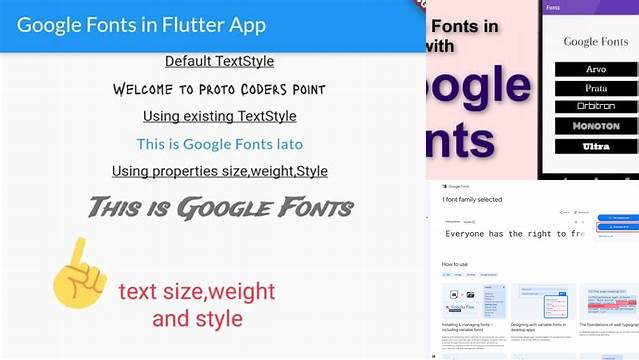
Flutter Google Fonts: The Complete List & Guide
Hey guys! Ever wanted to spice up your Flutter app with some awesome fonts? Well, you're in the right place! This guide dives deep into using Google Fonts in your Flutter projects. We'll cover everything from installation to advanced customization, ensuring your app looks stunning. Let's get started!
What are Google Fonts and Why Use Them in Flutter?
Google Fonts is a fantastic library of free, open-source fonts that you can use in your projects. Why should you bother? Well, typography plays a crucial role in user experience. The right font can make your app more readable, engaging, and professional. Using Google Fonts in Flutter is super easy, thanks to the google_fonts
package. It provides a vast selection of fonts directly within your app, without the need for manual downloading or importing. Plus, it helps keep your app's size down by efficiently managing font files.
Imagine you're building a sleek, modern e-commerce app. Using a generic, system-default font might make it look⦠well, generic. But with a carefully chosen Google Font, you can instantly elevate the app's aesthetics and create a memorable brand identity. The possibilities are endless, from elegant serif fonts for a sophisticated look to playful sans-serif fonts for a more casual feel.
The benefits are truly undeniable, the Google Fonts library offers unparalleled variety, meaning youāre sure to find something that fits your brand and design aesthetic perfectly. Secondly, it's completely free to use, saving you potentially hundreds of dollars in licensing fees, which are especially beneficial for startups or individual developers working on a budget. Lastly, the google_fonts
package simplifies integration; no more manually downloading fonts and including them in your project. This package handles all the heavy lifting, allowing you to focus on the fun stuff: designing a great user interface.
Basic Usage: Applying a Google Font to Your Text
Okay, now for the fun part! Let's apply a Google Font to some text in your Flutter app. Import the google_fonts
package in your Dart file:
Then, use the GoogleFonts
class to specify the font you want to use in your TextStyle
:
In this example, we're using the Roboto font with a font size of 24 and bold font weight. You can replace roboto
with any other font name from Google Fonts. Just remember to use the correct font name (case-sensitive!).
Applying a Google Font to your text is straightforward, but there are a few things to keep in mind. The GoogleFonts
class provides a static method for each font available in the Google Fonts library. This makes it incredibly easy to specify the font you want to use. You simply call GoogleFonts.fontName()
and pass in any additional styling parameters you need, such as fontSize
, fontWeight
, color
, and more. This approach not only simplifies the process but also makes your code more readable and maintainable.
Exploring the google_fonts
Package: More Than Just Fonts
The google_fonts
package offers more than just font names. It provides a range of customization options to fine-tune your typography. You can specify font weights, styles (italic, normal), letter spacing, and more. For example:
Text(
'This is italic text!',
style: GoogleFonts.lato(
fontStyle: FontStyle.italic,
),
)
Text(
'Custom letter spacing!',
style: GoogleFonts.montserrat(
letterSpacing: 2.0,
),
)
The google_fonts
package provides a plethora of options to tailor the appearance of your text. Let's delve into some of the most useful customization features. First off, you can adjust the fontWeight
to control the thickness of the text. Options range from FontWeight.w100
(thin) to FontWeight.w900
(black), allowing you to create subtle or dramatic variations. Secondly, you can use the fontStyle
property to switch between FontStyle.normal
(the default) and FontStyle.italic
, adding a touch of elegance or emphasis to your text.
Furthermore, the letterSpacing
property lets you control the amount of space between letters, which can improve readability or create a unique visual effect. Similarly, the wordSpacing
property allows you to adjust the space between words. Finally, you can use the height
property to control the line height, which is especially useful for longer blocks of text. Experimenting with these options can significantly enhance the visual appeal and readability of your app.
Advanced Techniques: Font Weight and Style Combinations
Combining different font weights and styles can create visually appealing and engaging text. For example, you can use a bold font weight for headings and a normal font weight for body text. Here's how:
Column(
children: [
Text(
'This is a Heading',
style: GoogleFonts.oswald(
fontWeight: FontWeight.bold,
fontSize: 30,
),
Text(
'This is the body text. It uses a normal font weight.',
style: GoogleFonts.lato(
fontWeight: FontWeight.normal,
fontSize: 16,
),
],
)
Mastering font weight and style combinations is a key skill for any Flutter developer aiming to create polished and professional-looking apps. These techniques allow you to establish a clear visual hierarchy, guide the user's eye, and convey information effectively. For example, using a bold font weight for headings immediately draws attention and signals the start of a new section. In contrast, using a normal font weight for body text ensures readability and prevents the text from appearing too overwhelming.
Experiment with different combinations to find what works best for your app's design. Consider using different font weights and styles to differentiate between various types of content, such as headings, subheadings, captions, and body text. Also, pay attention to the overall balance and harmony of your typography. Avoid using too many different font weights and styles, as this can create a cluttered and confusing look. Instead, aim for a cohesive and consistent design that enhances the user experience.
Ensuring Font Consistency Across Your App
To maintain a consistent look and feel throughout your app, define your text styles in a central location and reuse them across your widgets. You can create a custom class or use Flutter's ThemeData
to define your text styles.
Here's an example using ThemeData
:
ThemeData(
textTheme: TextTheme(
headline1: GoogleFonts.montserrat(
fontSize: 32,
fontWeight: FontWeight.bold,
color: Colors.black,
),
bodyText1: GoogleFonts.lato(
fontSize: 16,
color: Colors.grey[800],
),
)
Then, you can access these styles in your widgets:
Text(
'My Headline',
style: Theme.of(context).textTheme.headline1,
)
Consistency is key when it comes to typography in your Flutter app. Using a consistent set of fonts, sizes, weights, and styles throughout your app creates a professional and polished look, enhancing the user experience. This not only makes your app visually appealing but also improves readability and comprehension.
To achieve font consistency, you need to establish a clear typography system. This involves defining a set of text styles for different elements of your app, such as headings, subheadings, body text, captions, and buttons. Each text style should specify the font family, size, weight, style, color, and other relevant properties. Once you've defined your text styles, you can reuse them across your app, ensuring that all text elements of the same type have the same appearance.
Optimizing Font Loading for Performance
Loading fonts can impact your app's performance, especially on slower devices. To optimize font loading, use the precacheFont
method to load fonts in the background.
Future<void> main() async {
WidgetsFlutterBinding.ensureInitialized();
await GoogleFonts.lato.load(); // Precache the Lato font
runApp(MyApp());
}
Optimizing font loading is crucial for ensuring a smooth and responsive user experience in your Flutter app. Fonts, especially custom fonts from Google Fonts, can sometimes take a while to load, which can cause a noticeable delay when your app starts up or when a new screen is displayed. This delay can be frustrating for users and can negatively impact their perception of your app's performance.
One of the most effective ways to optimize font loading is to pre-cache the fonts that your app uses. Pre-caching involves loading the fonts in the background, before they are actually needed. This way, when the time comes to display the text, the font is already loaded and ready to go, eliminating any delay. The google_fonts
package provides a convenient method for pre-caching fonts called precacheFont
. You can use this method to load fonts in the background, typically during the app's initialization phase.
Handling Font Errors and Fallbacks
Sometimes, font loading can fail due to network issues or other reasons. To handle font errors gracefully, provide a fallback font in your TextStyle
.
Text(
'This is some text',
style: GoogleFonts.openSans(
fontSize: 16,
fontFamilyFallback: ['Arial'], // Fallback to Arial if Open Sans fails to load
),
)
Dealing with potential font loading errors is a critical aspect of developing robust and user-friendly Flutter apps. Network issues, font file corruption, or even unexpected server outages can sometimes prevent fonts from loading correctly. When this happens, your app can display unsightly placeholder text or even crash, leading to a poor user experience.
To handle font errors gracefully, you should always provide a fallback font in your TextStyle
. A fallback font is a default font that the system will use if the primary font fails to load. This ensures that your text remains readable and your app continues to function even in the event of a font loading error. The google_fonts
package allows you to specify a list of fallback fonts using the fontFamilyFallback
property. This property accepts a list of font family names, which will be tried in order until a valid font is found.
Dynamic Font Sizing Based on Screen Size
To make your app responsive, adjust font sizes based on the screen size. Use MediaQuery
to get the screen dimensions and calculate font sizes accordingly.
double screenWidth = MediaQuery.of(context).size.width;
double fontSize = screenWidth * 0.05; // Adjust font size based on screen width
Text(
'Responsive Text',
style: GoogleFonts.roboto(
fontSize: fontSize,
),
)
In the ever-evolving world of mobile devices, creating responsive apps that adapt seamlessly to different screen sizes is crucial for providing a consistent and enjoyable user experience. One key aspect of responsive design is dynamic font sizing, which involves adjusting the size of your text based on the screen size of the device.
Dynamic font sizing ensures that your text remains readable and visually appealing on devices with varying screen dimensions. On smaller screens, you might want to reduce the font size to prevent text from overflowing or appearing too cramped. Conversely, on larger screens, you might want to increase the font size to take advantage of the extra space and improve readability.
Using Custom Themes with Google Fonts
Integrate Google Fonts into your app's custom themes for a consistent and branded look. Define your font styles in your theme and apply them across your app.
ThemeData myTheme = ThemeData(
primaryColor: Colors.blue,
textTheme: TextTheme(
headline1: GoogleFonts.raleway(
fontSize: 36,
fontWeight: FontWeight.bold,
color: Colors.white,
),
);
MaterialApp(
theme: myTheme,
home: Scaffold(
appBar: AppBar(
title: Text('My App', style: Theme.of(context).textTheme.headline1),
),
)
Custom themes are a powerful way to define the overall look and feel of your Flutter app. By encapsulating all your app's visual styles, such as colors, typography, and spacing, into a central theme, you can ensure consistency and maintainability across your entire codebase.
Integrating Google Fonts into your custom themes is a great way to create a unique and branded look for your app. You can define your font styles within your theme and then apply them to your widgets, ensuring that all text elements adhere to your design guidelines. This approach not only simplifies the process of applying Google Fonts but also makes it easier to update and maintain your app's typography in the future.
Implementing Dark Mode with Different Fonts
Adjust font colors and styles for dark mode to ensure readability and visual comfort. Use different Google Fonts or font weights for light and dark themes.
ThemeData lightTheme = ThemeData(
brightness: Brightness.light,
textTheme: TextTheme(
bodyText1: GoogleFonts.lato(
color: Colors.black,
),
);
ThemeData darkTheme = ThemeData(
brightness: Brightness.dark,
textTheme: TextTheme(
bodyText1: GoogleFonts.lato(
color: Colors.white,
),
);
MaterialApp(
theme: isDarkMode ? darkTheme : lightTheme,
home: Scaffold(
body: Text(
'Hello, Dark Mode!',
style: Theme.of(context).textTheme.bodyText1,
),
)
Dark mode has become increasingly popular in recent years, offering users a more comfortable and visually appealing experience, especially in low-light environments. Implementing dark mode in your Flutter app involves adjusting the colors and styles of your UI elements to create a darker, more subdued look. One crucial aspect of implementing dark mode is adjusting font colors and styles to ensure readability and visual comfort.
When switching to dark mode, it's essential to adjust the font colors to ensure that the text remains legible against the darker background. Typically, this involves changing the font color from black or dark grey to white or light grey. However, simply changing the font color might not be enough to achieve optimal readability. You might also need to adjust the font weight or even use a different Google Font altogether.
Creating Custom Font Styles for Specific Widgets
Tailor font styles for specific widgets to create unique visual elements. Use different Google Fonts or styles for buttons, headers, and other UI components.
ElevatedButton(
style: ElevatedButton.styleFrom(
textStyle: GoogleFonts.montserrat( // Custom font for button text
fontSize: 18,
fontWeight: FontWeight.bold,
),
onPressed: () {},
child: Text('Click Me'),
)
While maintaining consistency is important, there are times when you want to deviate from your app's standard typography and create custom font styles for specific widgets. This allows you to create unique visual elements that stand out and enhance the user experience. For example, you might want to use a different Google Font or style for buttons, headers, or other UI components to draw attention to them or to convey a specific message.
Creating custom font styles for specific widgets is a relatively straightforward process. You can use the textStyle
property of the widget to specify the desired font properties, such as the font family, size, weight, and style. The google_fonts
package makes it easy to apply Google Fonts to your widgets by providing a convenient way to access and customize the fonts.
Implementing Font Scaling for Accessibility
Support accessibility by implementing font scaling, allowing users to adjust font sizes based on their preferences. Use MediaQuery
to get the user's text scale factor and adjust font sizes accordingly.
double textScaleFactor = MediaQuery.of(context).textScaleFactor;
double fontSize = 16 * textScaleFactor; // Adjust font size based on text scale factor
Text(
'Accessible Text',
style: GoogleFonts.roboto(
fontSize: fontSize,
),
)
Accessibility is a crucial aspect of app development, ensuring that your app is usable by people with disabilities. One important accessibility consideration is font scaling, which allows users to adjust the size of the text in your app based on their preferences. This is particularly important for users with visual impairments who may need to increase the font size to make the text readable.
Implementing font scaling in your Flutter app involves using the MediaQuery
class to get the user's text scale factor and then adjusting the font sizes of your text elements accordingly. The text scale factor is a value that represents the user's preferred text size, with a value of 1.0 indicating the default text size.
Using Google Fonts with Different Languages
Ensure your app supports multiple languages by choosing Google Fonts that support the required character sets. Check the font's documentation to see which languages it supports.
Text(
'ä½ å„½ļ¼äøēļ¼',
style: GoogleFonts.notoSans( // Noto Sans supports many languages
fontSize: 20,
),
)
In today's globalized world, supporting multiple languages is essential for reaching a wider audience and making your app accessible to users from different cultural backgrounds. When developing a multilingual Flutter app, one important consideration is choosing Google Fonts that support the required character sets.
Not all Google Fonts support all languages. Some fonts are designed primarily for Latin-based languages, while others support a wider range of character sets, including Cyrillic, Greek, Arabic, and CJK (Chinese, Japanese, Korean) characters. It's crucial to choose fonts that support the languages you plan to support in your app to ensure that your text is displayed correctly.
Combining Google Fonts with Local Fonts
Mix Google Fonts with local fonts to create a unique typographic palette. Use local fonts for specific elements and Google Fonts for the rest of your app.
Text(
'This uses a local font', // Define your local font in pubspec.yaml
style: TextStyle(
fontFamily: 'MyLocalFont',
fontSize: 18,
),
Text(
'This uses a Google Font',
style: GoogleFonts.lato(
fontSize: 18,
),
)
While Google Fonts offers a vast selection of free and open-source fonts, you might sometimes want to use local fonts in your Flutter app. Local fonts are fonts that are stored locally on the user's device or included in your app's assets. Combining Google Fonts with local fonts allows you to create a unique typographic palette and achieve a specific design aesthetic.
There are several reasons why you might want to use local fonts in your Flutter app. You might have a custom font that you want to use for branding purposes, or you might want to use a font that is not available on Google Fonts. Additionally, using local fonts can sometimes improve performance, as the fonts are already stored on the device and don't need to be downloaded from the internet.
Creating a Font Preview Widget
Build a font preview widget to easily visualize different Google Fonts and their styles. Allow users to experiment with font options and see the results in real-time.
class FontPreview extends StatefulWidget {
final String fontName;
FontPreview({required this.fontName});
@override
_FontPreviewState createState() => _FontPreviewState();
}
class _FontPreviewState extends State<FontPreview> {
double fontSize = 24;
FontWeight fontWeight = FontWeight.normal;
@override
Widget build(BuildContext context) {
return Column(
children: [
Text(
'The quick brown fox jumps over the lazy dog.',
style: GoogleFonts.getFont(
widget.fontName,
fontSize: fontSize,
fontWeight: fontWeight,
),
Slider(
value: fontSize,
min: 12,
max: 48,
onChanged: (value) {
setState(() {
fontSize = value;
});
},
),
],
);
}
When working with Google Fonts, it can be helpful to have a way to easily visualize different fonts and their styles. A font preview widget allows you to experiment with various font options and see the results in real-time, making it easier to choose the perfect font for your app.
A font preview widget typically displays a sample text string in a specific font, along with controls that allow you to adjust the font size, weight, style, and other properties. As you adjust the controls, the widget updates the text in real-time, allowing you to see how the font looks with different settings.
Storing Font Preferences Locally
Allow users to save their preferred font settings locally using SharedPreferences
. Load these preferences when the app starts to provide a personalized experience.
import 'package:shared_preferences/shared_preferences.dart';
Future<void> saveFontPreference(String fontName) async {
SharedPreferences prefs = await SharedPreferences.getInstance();
await prefs.setString('fontName', fontName);
}
Future<String?> loadFontPreference() async {
SharedPreferences prefs = await SharedPreferences.getInstance();
return prefs.getString('fontName');
}
Personalization is a key aspect of creating engaging and user-friendly apps. Allowing users to customize their experience and save their preferences can significantly enhance their satisfaction and loyalty. One way to personalize your Flutter app is to allow users to save their preferred font settings locally.
By allowing users to save their preferred font settings, such as the font family, size, and style, you can provide them with a personalized experience that caters to their individual needs and preferences. This is particularly important for users with visual impairments or those who simply prefer a different font than the default.
Implementing a Font Picker Dialog
Create a font picker dialog that allows users to browse and select Google Fonts from a list. Update the app's font settings based on the user's selection.
Future<String?> showFontPickerDialog(BuildContext context) async {
return showDialog<String>(
context: context,
builder: (BuildContext context) {
return AlertDialog(
title: Text('Select a Font'),
content: SingleChildScrollView(
child: ListBody(
children: <Widget>[
GestureDetector(
child: Text('Roboto'),
onTap: () {
Navigator.of(context).pop('Roboto');
},
),
GestureDetector(
child: Text('Open Sans'),
onTap: () {
Navigator.of(context).pop('Open Sans');
},
),
],
),
);
},
);
}
Providing users with a way to customize the font settings in your app can greatly enhance their experience and make your app more accessible. A font picker dialog allows users to browse and select Google Fonts from a list, making it easy to choose the perfect font for their needs.
A font picker dialog is a modal window that displays a list of available Google Fonts. Users can scroll through the list and select the font they want to use. Once the user selects a font, the dialog closes and the app updates its font settings to reflect the user's selection.
Creating Animated Font Transitions
Animate font transitions to create smooth and visually appealing changes. Use AnimatedDefaultTextStyle
to animate changes in font properties.
AnimatedDefaultTextStyle(
duration: Duration(milliseconds: 300),
style: GoogleFonts.roboto(
fontSize: fontSize,
fontWeight: fontWeight,
),
child: Text('Animated Text'),
)
Animation can add a touch of elegance and polish to your Flutter app, making it more engaging and visually appealing. One way to incorporate animation into your app is to create animated font transitions. Animated font transitions allow you to smoothly animate changes in font properties, such as the font size, weight, or style.
Animated font transitions can be used to create a variety of effects, such as highlighting text, emphasizing important information, or simply adding a subtle visual flourish. They can also be used to create a more responsive and interactive user interface, providing users with visual feedback when they interact with your app.
Implementing Font-Based Icons
Use font-based icons from Google Fonts to create scalable and customizable icons. Combine icons and text within your widgets for a cohesive look.
TextSpan(
children: [
TextSpan(
text: '\ue5cd', // Unicode for a back arrow icon
style: TextStyle(
fontFamily: 'MaterialIcons',
fontSize: 24,
),
TextSpan(
text: 'Back',
style: GoogleFonts.roboto(
fontSize: 16,
),
],
)
Icons are an essential part of any user interface, providing visual cues that help users navigate and understand your app. While you can use image-based icons, font-based icons offer several advantages, such as scalability, customizability, and smaller file sizes.
Font-based icons are vector-based images that are stored as fonts. This means that they can be scaled to any size without losing quality, making them ideal for use on devices with different screen resolutions. Additionally, font-based icons can be easily customized by changing their color, size, or style.
Using Google Fonts in Custom Renderers
Integrate Google Fonts into custom renderers for advanced text rendering and effects. Use custom renderers to create unique text layouts and animations.
While Flutter's built-in text rendering capabilities are powerful, there may be times when you need to create custom renderers to achieve more advanced text rendering and effects. Custom renderers allow you to take full control over the rendering process, enabling you to create unique text layouts, animations, and visual effects.
Integrating Google Fonts into custom renderers involves using the loadFont
method from the google_fonts
package to load the desired font and then using the font's glyph information to render the text. This allows you to create custom text rendering pipelines that incorporate Google Fonts seamlessly.
Dynamic Font Loading Based on User Location
Load different Google Fonts based on the user's location to provide a localized experience. Use the intl
package to determine the user's locale and load the appropriate fonts.
import 'package:intl/intl.dart';
Future<void> loadFontsBasedOnLocale() async {
String locale = Intl.getCurrentLocale();
if (locale.startsWith('zh')) { // Chinese
await GoogleFonts.notoSansSC.load();
} else if (locale.startsWith('ar')) { // Arabic
await GoogleFonts.notoKufiArabic.load();
} else { // Default to Latin
await GoogleFonts.roboto.load();
}
In order to provide a localized user experience, Flutter allows the fonts to be loaded dynamically based on the userās location. This ensures the content is displayed in a way that resonates with the userās cultural and linguistic background. This method relies on the intl
package to define the userās locale, allowing you to load the appropriate fonts dynamically. For instance, a Chinese language pack can be loaded for a user in China, while an Arabic font package is loaded for users in Arabic-speaking countries. By providing this dynamic font loading based on the userās location, your application is guaranteed to reach a wider audience with better user experience.
Creating Font-Based Loading Indicators
Use font-based characters to create custom loading indicators. Animate these characters to provide visual feedback during loading processes.
Font-based loading indicators add a unique and creative touch to your app's user experience. Rather than relying on traditional loading spinners or progress bars, font-based characters can be animated to provide visual feedback during loading processes. This approach can be particularly effective when you want to create a custom and branded loading experience.
Creating font-based loading indicators involves selecting appropriate font-based characters that can be animated to create the desired effect. You can use characters from existing icon fonts, such as Font Awesome or Material Icons, or you can create your own custom font with specific characters designed for loading indicators.
Implementing Font Effects with Shaders
Use shaders to create advanced font effects, such as outlines, shadows, and gradients. Apply these effects to Google Fonts for a unique visual style.
Shaders provide a powerful way to create advanced font effects in your Flutter app. By using shaders, you can apply effects such as outlines, shadows, and gradients to Google Fonts, creating a unique and visually stunning style.
Shaders are small programs that run on the GPU and allow you to manipulate the pixels of a rendered image. In the context of font effects, shaders can be used to modify the appearance of the font glyphs, adding visual effects that would be difficult or impossible to achieve with traditional font styling techniques.
Using Google Fonts for Branding
Select Google Fonts that align with your brand identity to create a consistent and recognizable look. Use these fonts across your app and marketing materials.
Branding is a critical aspect of building a successful app. Your brand identity is the visual representation of your company's values, personality, and mission. It's what sets you apart from your competitors and helps you connect with your target audience.
Typography plays a crucial role in brand identity. The fonts you use can communicate a wide range of emotions and associations, from professionalism and trustworthiness to creativity and innovation. Choosing the right Google Fonts for your app can help you create a consistent and recognizable look that aligns with your brand identity.
Checking Font License and Usage Rights
Always check the license and usage rights of Google Fonts before using them in your app. Ensure that you comply with the terms of the license to avoid any legal issues.
Before using any Google Font in your app, it's crucial to check its license and usage rights. While Google Fonts are generally free to use, it's important to understand the terms of the license to ensure that you comply with them and avoid any legal issues.